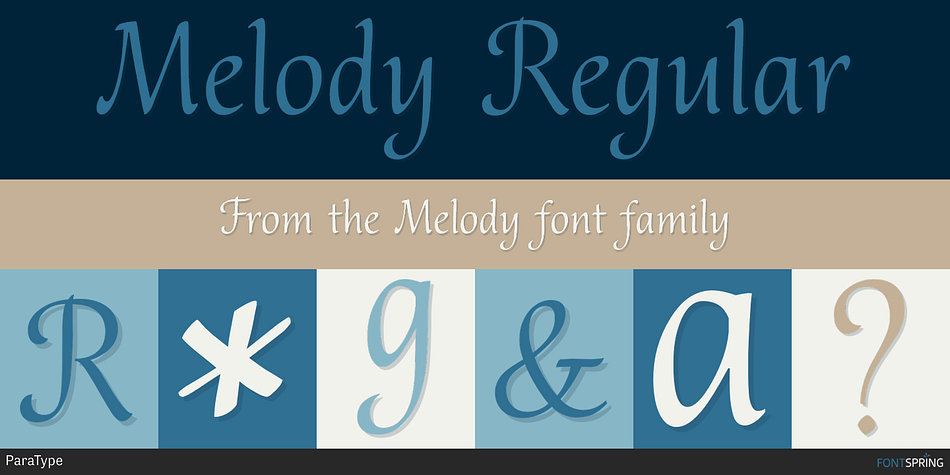
Designed by Natalia Vasilyeva, Melody is a script font published by ParaType.
An original calligraphic script by Natalya Vasilyeva. Licensed by ParaType in 2003. For use in advertising and display typography.